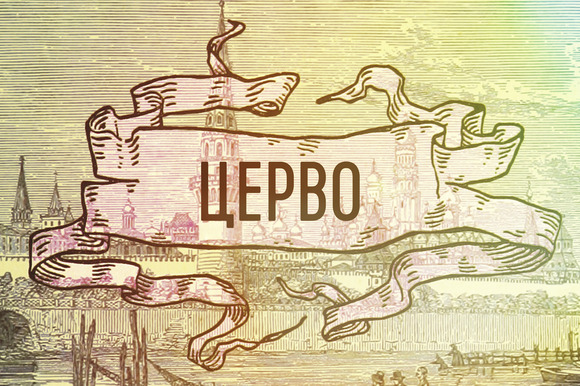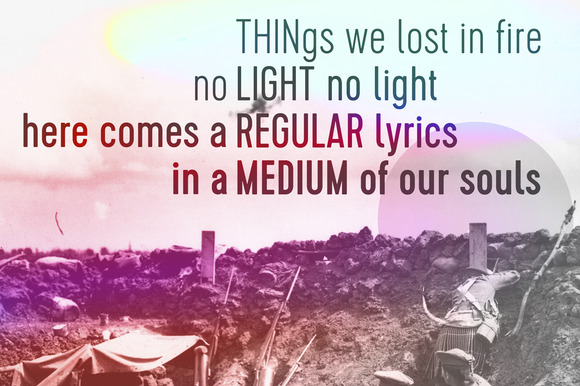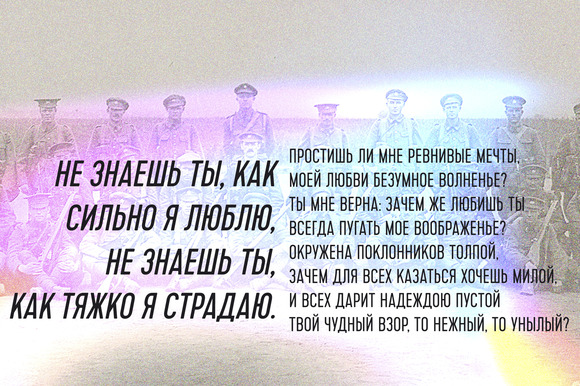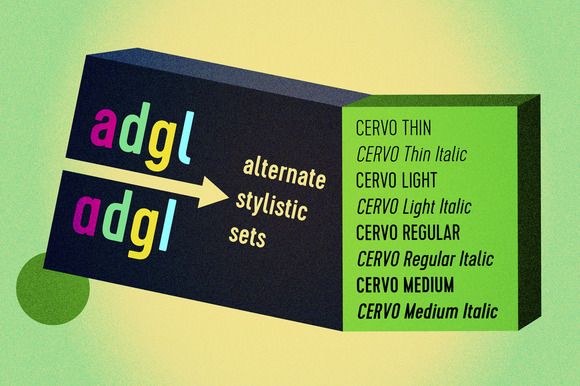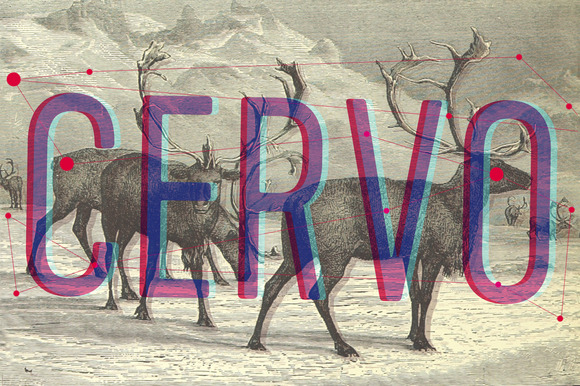
Cervo Font: The Ultimate Guide for Designers and Crafters
When it comes to typography, the right font can make all the difference in the world. For designers and crafters, selecting a font that resonates with their creative vision is crucial. One font that has gained significant attention in recent years is the Cervo Font. In this comprehensive guide, we’ll explore the ins and outs of Cervo Font, its features, and why it’s a favorite among designers and crafters.
What is Cervo Font?
Cervo Font, also known as Cervo, is a modern sans-serif typeface designed by talented typographers. The font was created with the goal of providing a clean, elegant, and highly legible typeface for various design applications. Cervo Font boasts a unique blend of geometric and humanist elements, making it perfect for a wide range of creative projects.
Key Features of Cervo Font
- Clean and Minimalist Design: Cervo Font features a sleek and minimalist design, making it ideal for modern designs that require a touch of sophistication.
- High Legibility: The font’s carefully crafted letterforms ensure high legibility, even at small font sizes.
- Geometric and Humanist Elements: Cervo Font combines geometric shapes with humanist elements, resulting in a unique and aesthetically pleasing typeface.
- Multiple Weights: Cervo Font comes in multiple weights, allowing designers to choose the perfect weight for their project.
- Extensive Language Support: The font supports a wide range of languages, making it a versatile choice for global design projects.
Why Designers and Crafters Love Cervo Font
Cervo Font has become a favorite among designers and crafters due to its versatility and aesthetic appeal. Here are some reasons why:
- Perfect for Branding: Cervo Font’s clean and modern design makes it an excellent choice for branding and logo design.
- Suitable for Web Design: The font’s high legibility and clean design make it perfect for web design, ensuring a great user experience.
- Ideal for Print Design: Cervo Font’s elegant design and high-quality rendering make it suitable for print design, including business cards, brochures, and posters.
- Easy to Pair: The font’s neutral design makes it easy to pair with other fonts, allowing designers to create stunning typography combinations.
Tips for Using Cervo Font
To get the most out of Cervo Font, here are some valuable tips:
- Experiment with Weights: Try different weights to add depth and visual interest to your design.
- Pair with Other Fonts: Combine Cervo Font with other fonts to create unique and engaging typography.
- Adjust Font Size: Experiment with different font sizes to create visual hierarchy and emphasis.
- Use in Combination with Images: Pair Cervo Font with high-quality images to create stunning visual compositions.
Cervo Font is an exceptional typeface that offers a unique blend of style, legibility, and versatility. Whether you’re a designer or crafter, this font is sure to become a valuable addition to your typography arsenal. With its clean design, multiple weights, and extensive language support, Cervo Font is perfect for a wide range of creative projects. By following the tips outlined in this guide, you’ll be able to unlock the full potential of Cervo Font and take your designs to the next level.